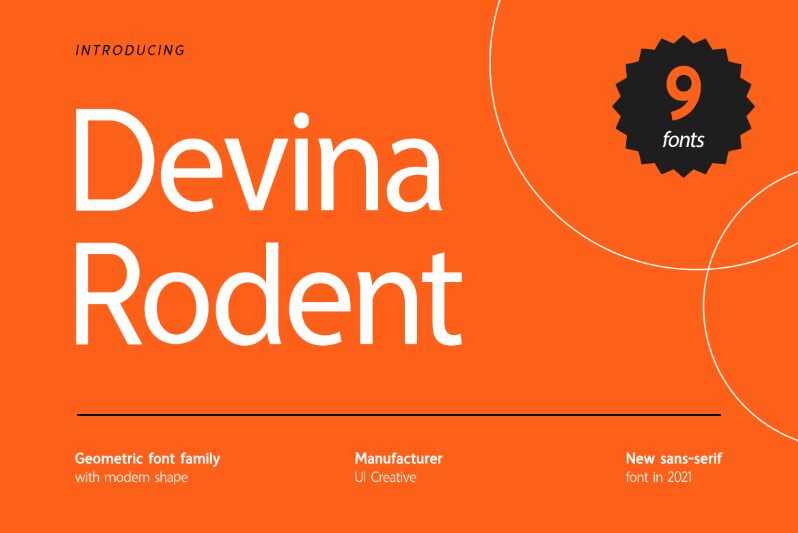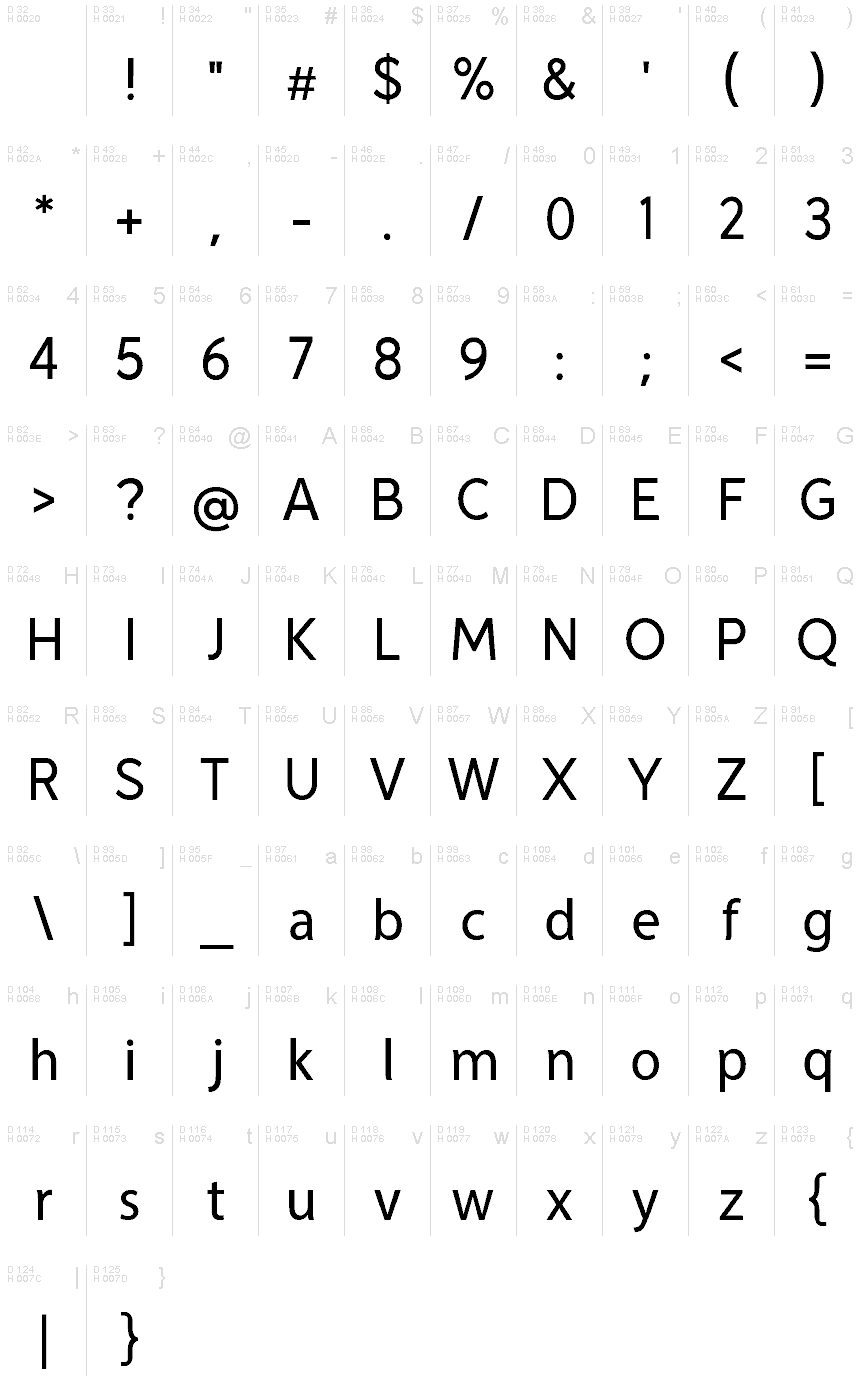
Devina Rodent
Devina Rodent font from UI Creative is a contemporary free font with refined aesthetics. Elegant and professional, the sans serif project has all the required elements for capturing an understated sophistication in any personal or business-related design.
This versatile tool finds use cases in branding (logos, slogans), packaging, magazines, websites (banners), stylish headlines/titles/subtitles, quotes, posters, business cards/stationery etc.